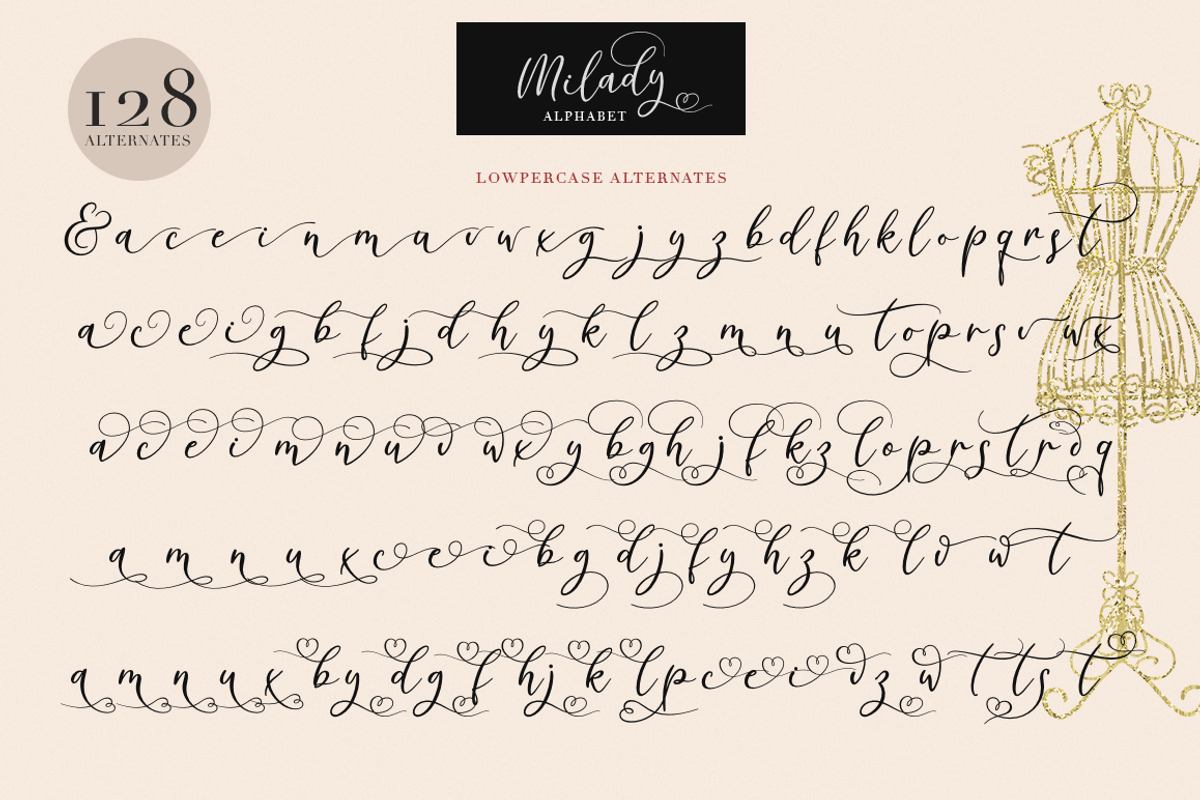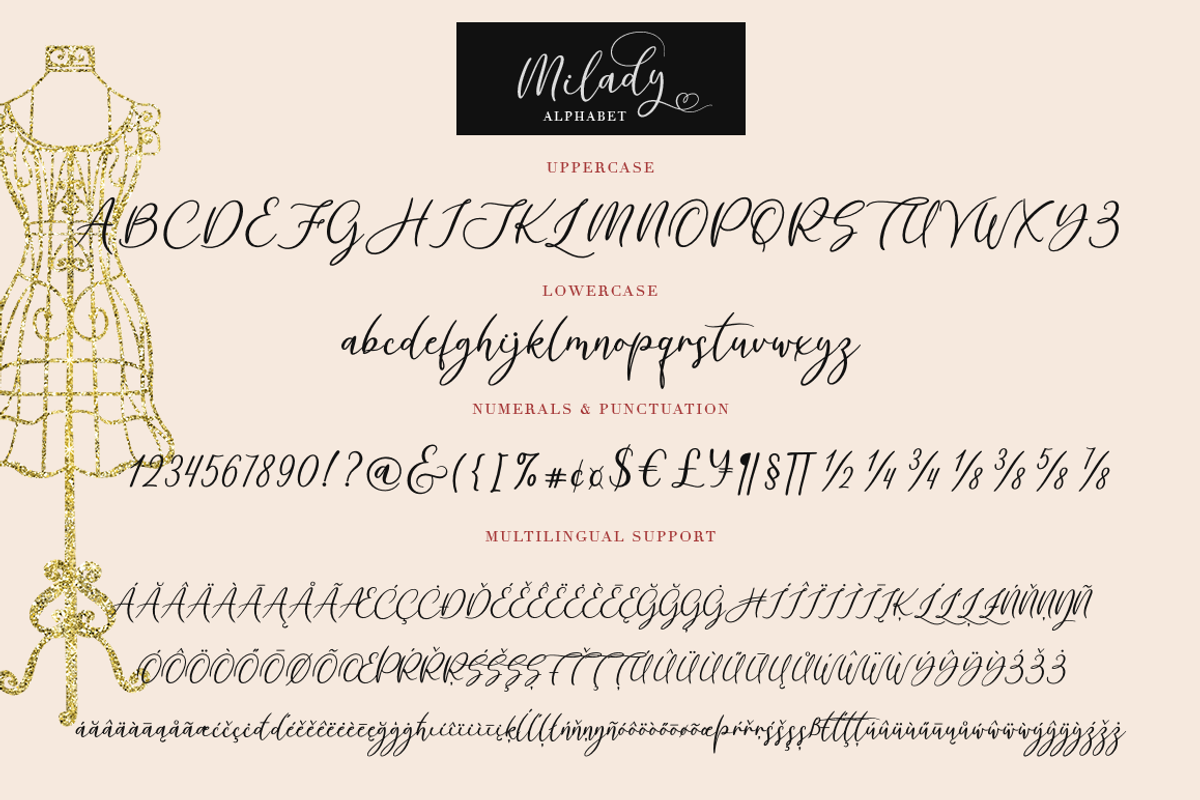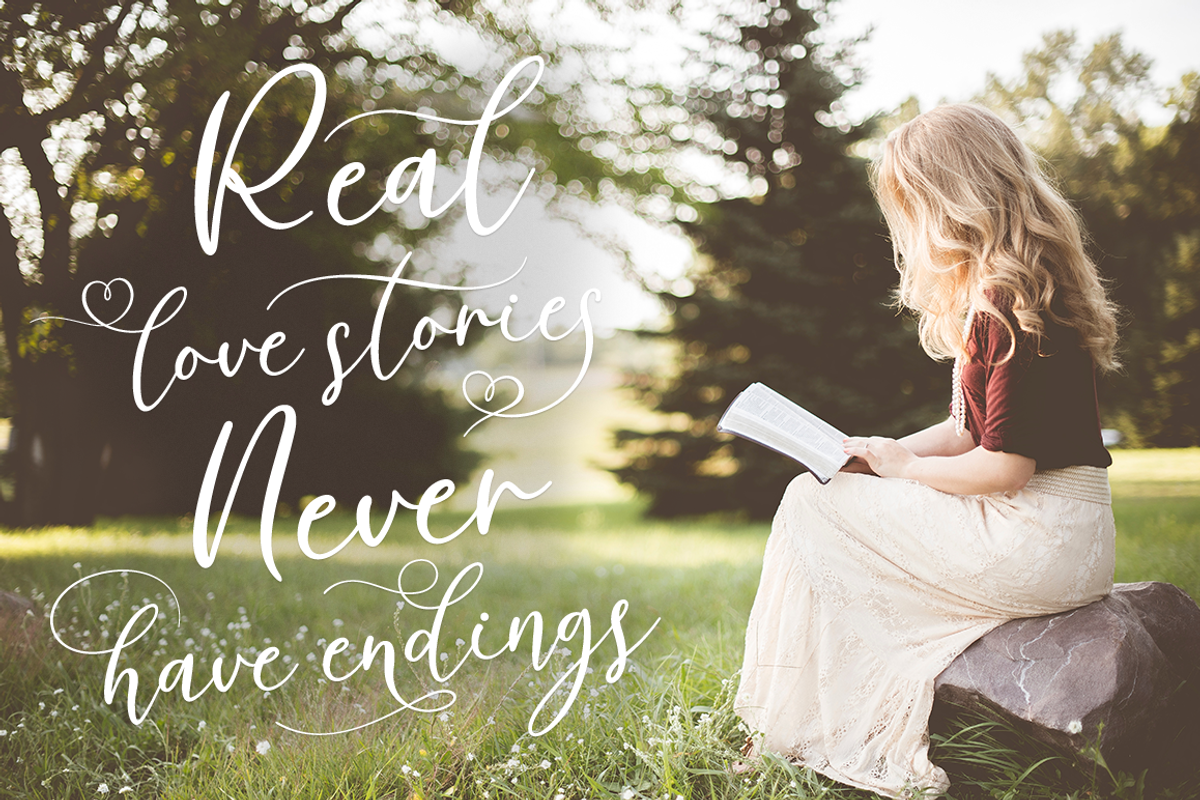
Milady
Milady script font inspired by romance, lightness and modern calligraphy, will not leave indifferent those who are looking for a font in a elegant and modern handwritten style.
This font fits perfectly into your project, with it you can easily design your design in a more classic version or more elegant and romantic. all this can be done thanks to alternates.
In this font I prepared many alternates so that you could make your project unique and choose what suits you!
Following international symbols support: ÀÁÂÃÄÅĄÇĆÈÉÊËĘÌÍÎÏÐÑŃŁÒÓÔÕÖØÙÚÛÜŚŠŸÝŹŻŽßàáâãäåçèéêëìíîïðñòóôõöøùúûüýÿąćęłńśšźżž